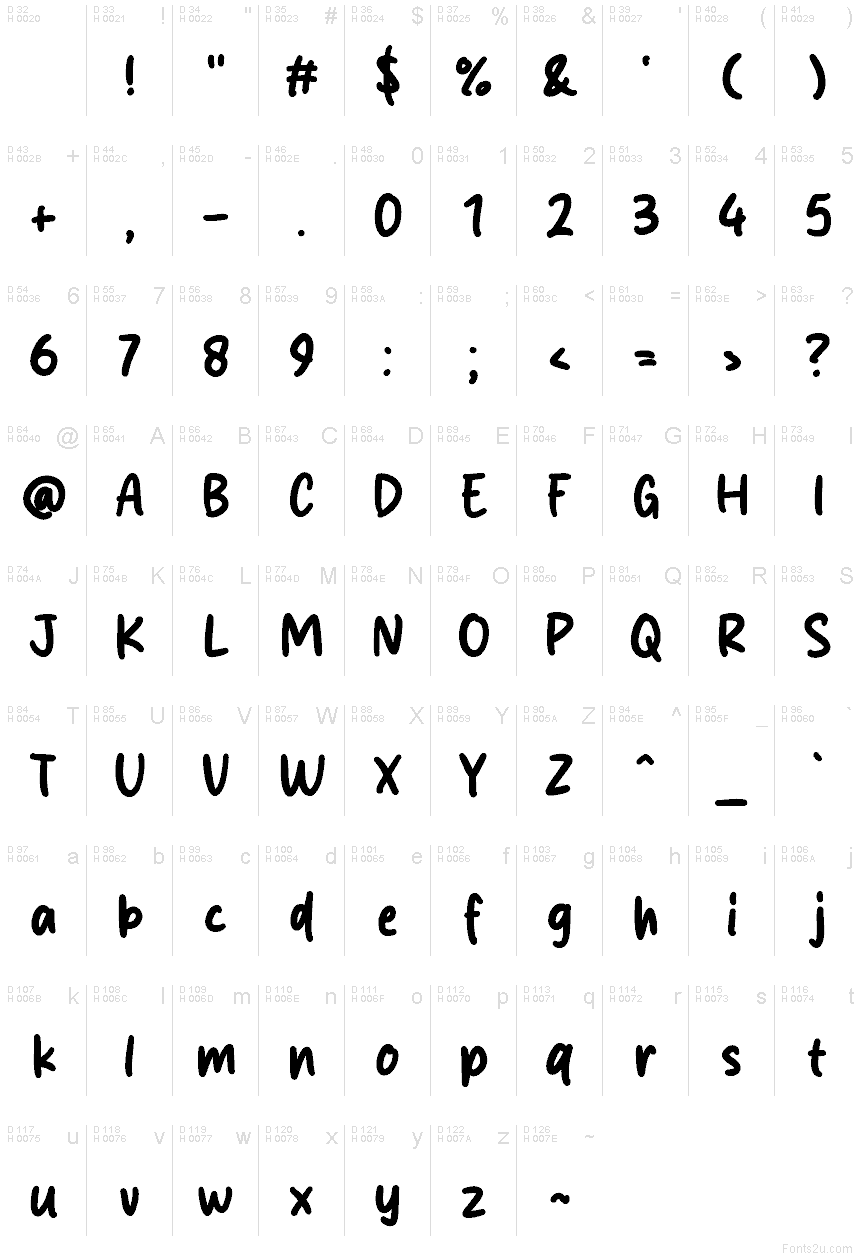
Salad Chicken
Salad Chicken font by Origin Type presents a friendly, handwritten style with a casual feel and modern influence. Its smooth texture and informal script aesthetic make it effortlessly charming. The premium font is free to use in any of your projects.
Use Salad Chicken for comics, video titles, movie posters, quotes, weddings, cards, invitations, and any text that require an eye-catching typeface. Enjoying branding projects with a social media visual identity as well as fun newsletters!